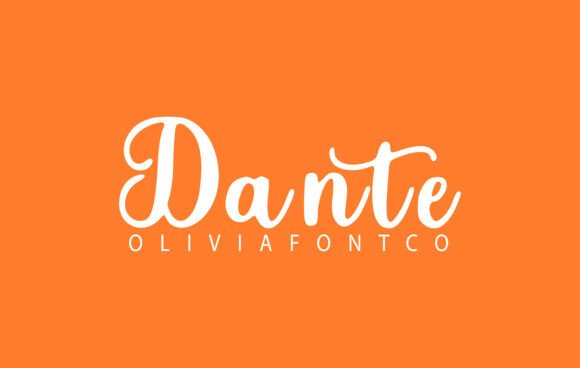
Dante Font: The Ultimate Choice for Creative Designs
In the world of typography, fonts play a crucial role in conveying the tone and personality of a brand or design. With numerous fonts available, finding the perfect one that combines elegance, legibility, and uniqueness can be a daunting task. However, if you’re looking for a font that can elevate your creative ideas to new heights, look no further than the Dante font. In this article, we’ll explore the features, benefits, and uses of the Dante font, and why it’s becoming a favorite among designers and creative enthusiasts.
What is Dante Font?
Dante font is an authentic handwritten font with a romantic touch. Its unique design makes it an excellent choice for a wide range of creative projects, from magazine headlines to social media graphics, branding, wedding invitations, and more. The font’s creator has expertly designed it to be both legible and aesthetically pleasing, making it perfect for use as a title or body text.
Features of Dante Font
The Dante font boasts several features that make it an attractive choice for designers:
- Authentic Handwritten Style: The font’s handwritten style gives it a personal and intimate feel, making it perfect for designs that require a touch of warmth and personality.
- Romantic Touch: The font’s romantic undertones make it ideal for designs related to love, relationships, and celebrations, such as wedding invitations and anniversary cards.
- Legibility: The font is designed to be highly legible, making it suitable for use as both title and body text.
- Versatility: The Dante font can be used for a wide range of creative projects, from digital designs to print materials.
Benefits of Using Dante Font
The Dante font offers several benefits to designers and creative enthusiasts:
- Elevate Your Designs: The font’s unique style and romantic touch can elevate your designs to new heights, making them more engaging and memorable.
- Save Time: With its legibility and versatility, the Dante font can save you time and effort in finding the perfect font for your project.
- Stand Out: The font’s distinctive style can help your designs stand out from the crowd, making them more noticeable and attention-grabbing.
Uses of Dante Font
The Dante font is perfect for a wide range of creative projects, including:
- Magazine Headlines: The font’s bold and romantic style makes it ideal for magazine headlines, adding a touch of elegance and sophistication.
- Social Media Graphics: The font’s legibility and versatility make it perfect for social media graphics, such as Facebook posts, Instagram captions, and Twitter headers.
- Branding: The Dante font can be used to create a unique and memorable brand identity, setting your business apart from competitors.
- Wedding Invitations: The font’s romantic touch makes it perfect for wedding invitations, adding a touch of love and elegance to your special day.
- Cards and Stationery: The font’s handwritten style and romantic undertones make it ideal for cards and stationery, such as birthday cards, anniversary cards, and thank-you notes.
Tips for Using Dante Font
To get the most out of the Dante font, here are some tips to keep in mind:
- Use it Sparingly: While the Dante font is beautiful, it’s best to use it sparingly to avoid overwhelming your design.
- Pair it with Other Fonts: The font pairs well with other fonts, such as sans-serif fonts, to create a visually appealing design.
- Experiment with Colors: The Dante font looks great in a variety of colors, so don’t be afraid to experiment and find the perfect color scheme for your design.
In conclusion, the Dante font is an excellent choice for designers and creative enthusiasts looking for a unique and romantic font to elevate their designs. With its authentic handwritten style, legibility, and versatility, the Dante font is perfect for a wide range of creative projects, from magazine headlines to social media graphics, branding, wedding invitations, and more. By following the tips outlined in this article, you can get the most out of the Dante font and create stunning designs that leave a lasting impression.
- What is the Dante font? The Dante font is an authentic handwritten font with a romantic touch, designed to be both legible and aesthetically pleasing.
- What is the Dante font used for? The Dante font is perfect for a wide range of creative projects, including magazine headlines, social media graphics, branding, wedding invitations, cards, and more.